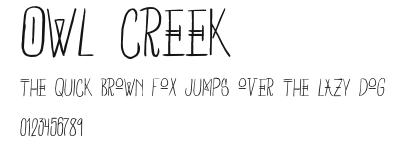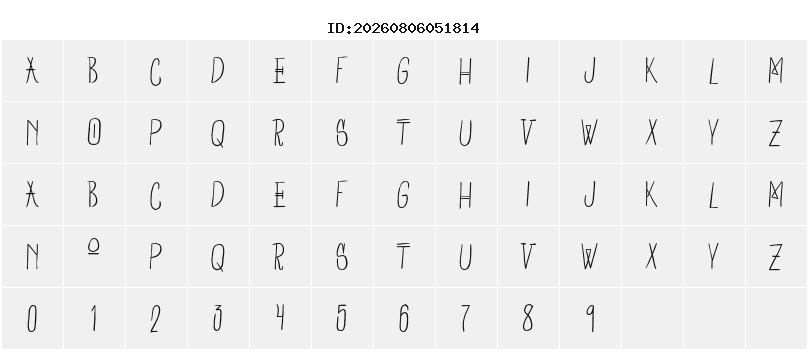
Owl Creek Preview
• Font Name: Owl Creek
• Full Font Name: OwlCreek-Regular
About Owl Creek.otf
Owl Creek.otf is a modern, elegant sans-serif font designed for ultimate readability and visual harmony. Perfect for branding, headlines, web design, and print materials.